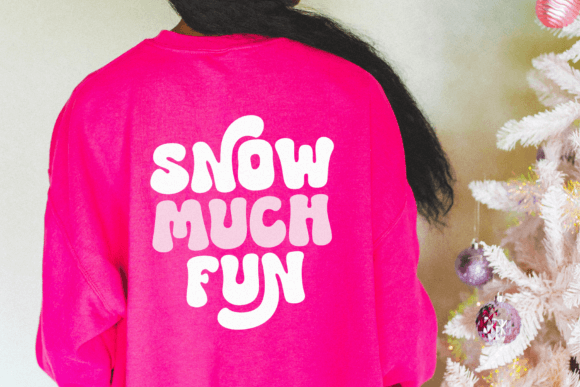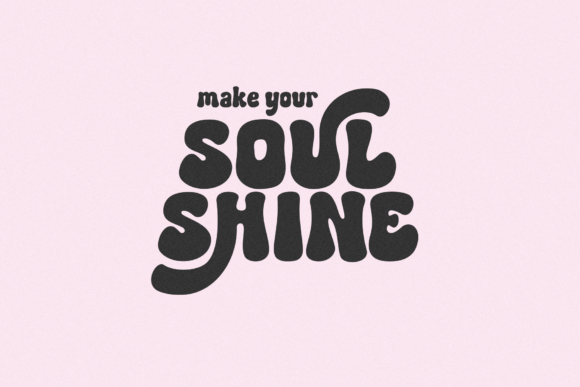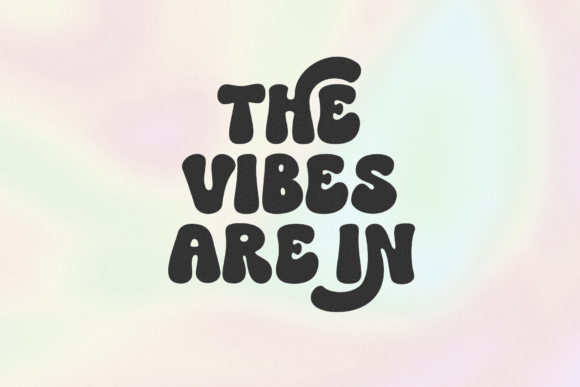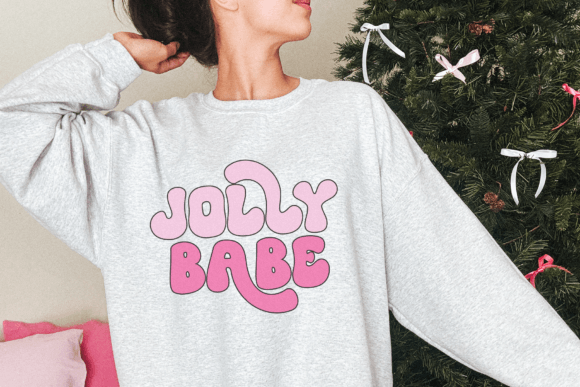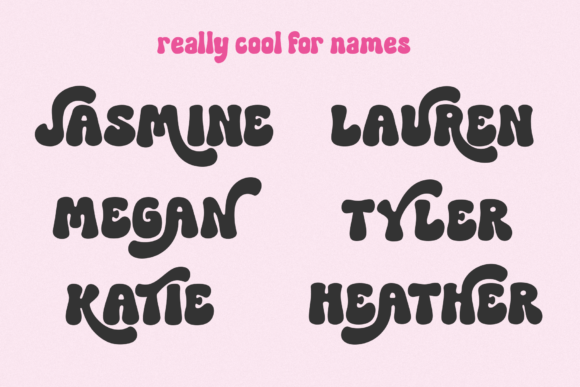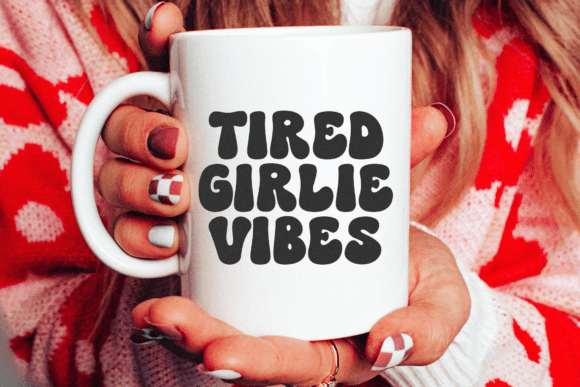
Introduction to Honey Glaze Font Font
Fonts play a crucial role in design, and the Honey Glaze Font font is a typeface that brings both character and versatility to any project. Whether you’re working on a branding project, a website, or a print design, the Honey Glaze Font font offers a unique style that can elevate your work.
Honey Glaze is a bubbly fun retro font.
This font is perfect for all of your retro logos, shirts, quotes, personalized names, ornaments, stickers and more This font includes super cool swashes that is sure to make all of your design projects stand out.
Key Features of Honey Glaze Font Font
Why Choose Honey Glaze Font Font?
The Honey Glaze Font font is more than just a typeface – it’s a design tool that helps you communicate your message with style and clarity. Its unique character set and versatile design make it suitable for a wide range of applications, from elegant invitations to bold headlines.
With its carefully crafted letterforms and balanced proportions, the Honey Glaze Font font ensures readability and visual appeal across all mediums.
What makes Honey Glaze Font font special?
The Honey Glaze Font font stands out with its unique design, exceptional readability, and versatility across various design applications.